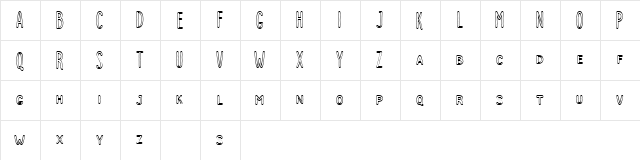
Dutchy Free Outline Regular
Design Context for Dutchy Free Outline Typeface
Dutchy Free Outline is built around its visual character rather than neutral utility — its distinctive forms are designed to make an impression at display sizes.
Font Pairing: Pair with a clean neutral sans-serif for body copy to let Dutchy Free Outline's character lead without overwhelming the composition.
Pro Tip: Treat Dutchy Free Outline as the centrepiece of your typographic hierarchy. One strong heading set in a decorative face can carry an entire layout.